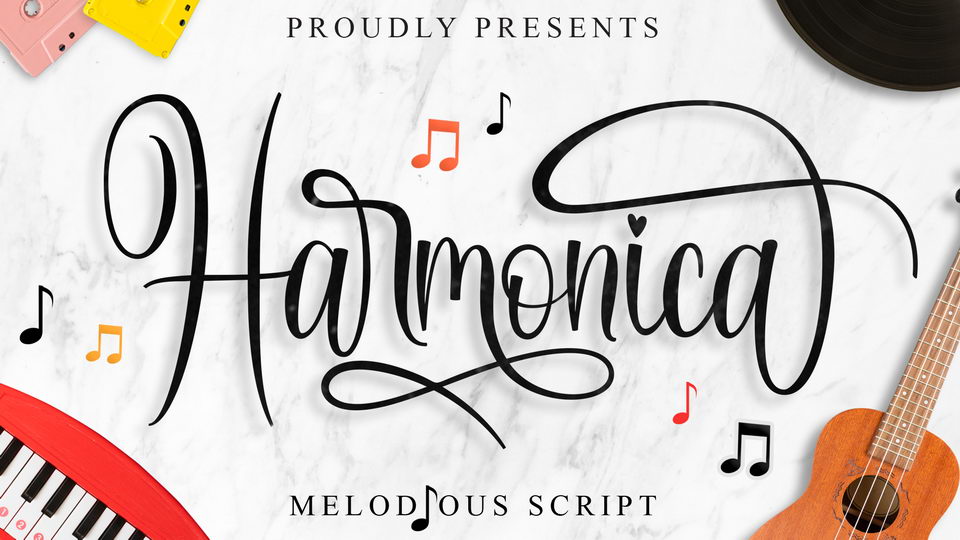
Download Harmonica script. a modern calligraphy typeface to make your design looks beautiful and elegant. Harmonica is perfect for designing card name, quotes, invitation, crafts, and much more.